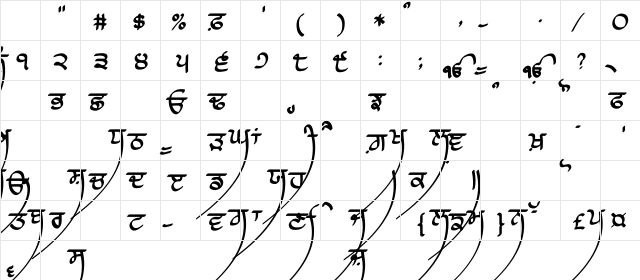
Lanma Script 5 Medium Medium Script
Design Context for Lanma Script 5 Medium Typeface
Lanma Script 5 Medium brings a calligraphic fluidity to the page — its connecting strokes and expressive curves give it an unmistakably human quality.
Font Pairing: Combine Lanma Script 5 Medium with a simple geometric sans for maximum contrast — the tension between flowing curves and clean structure is a classic typographic pairing.
Pro Tip: Pair Lanma Script 5 Medium with a clean sans-serif for supporting text. The contrast between fluid script and geometric structure creates an elegant typographic hierarchy.